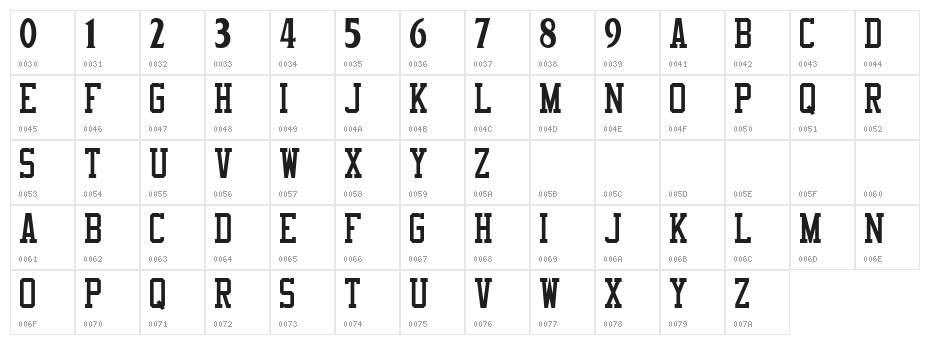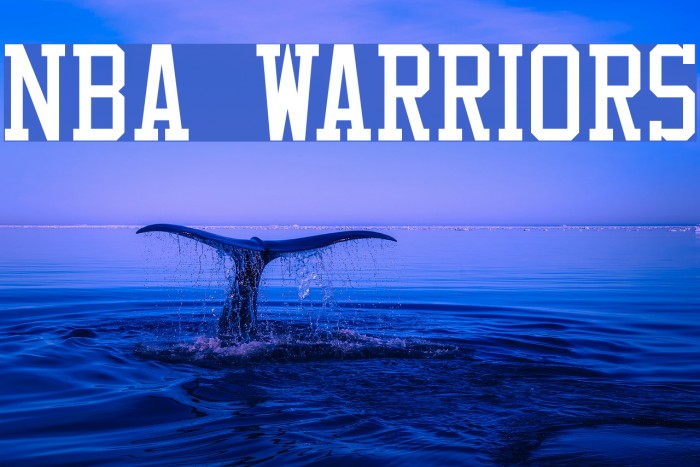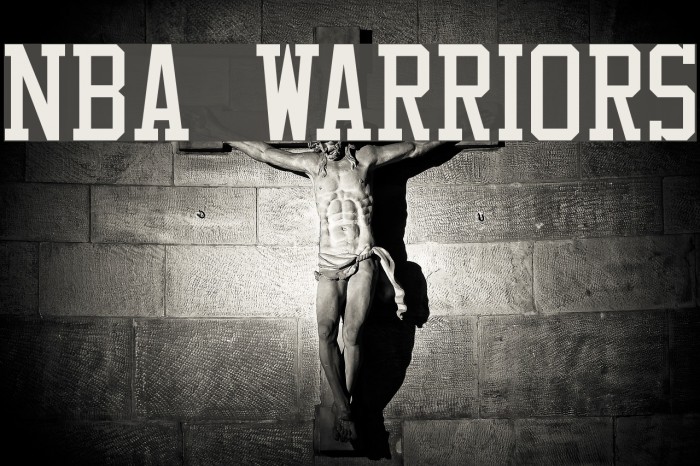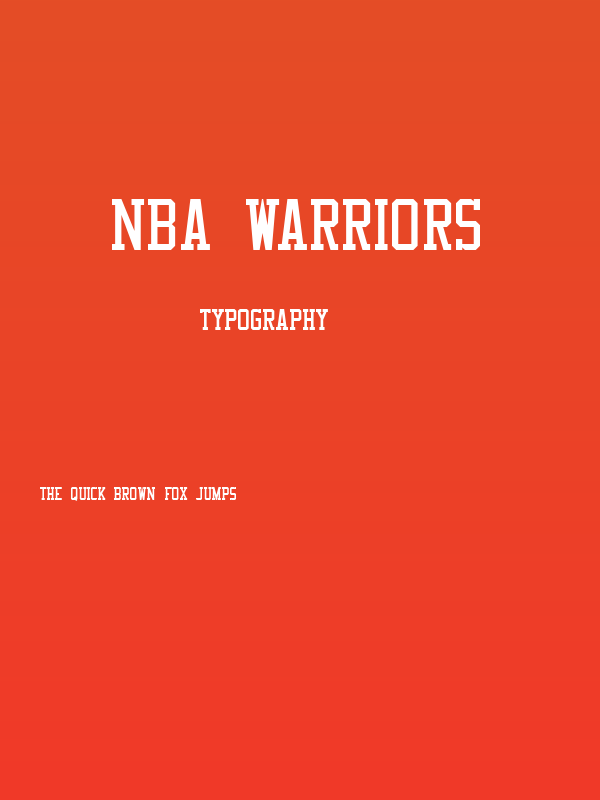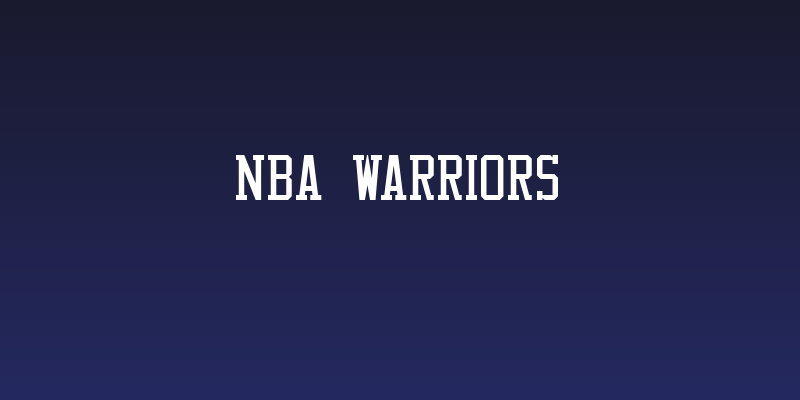
NBA Warriors Font
NBA Warriors Description
This font features bold, block-like characters with a strong presence, ideal for making a statement. The uppercase letters are uniform in height and width, creating a cohesive and structured appearance. The numbers follow the same bold style, ensuring consistency across all characters. The font's design is reminiscent of sports team branding, with its robust and impactful look. The characters are evenly spaced, providing a clean and organized feel. This font is perfect for projects that require a strong, authoritative typeface.
A bold, block-like font ideal for impactful and authoritative designs from Uncategorized fonts.
- Proposed Projects: Perfect for sports branding, team logos, posters, and merchandise.